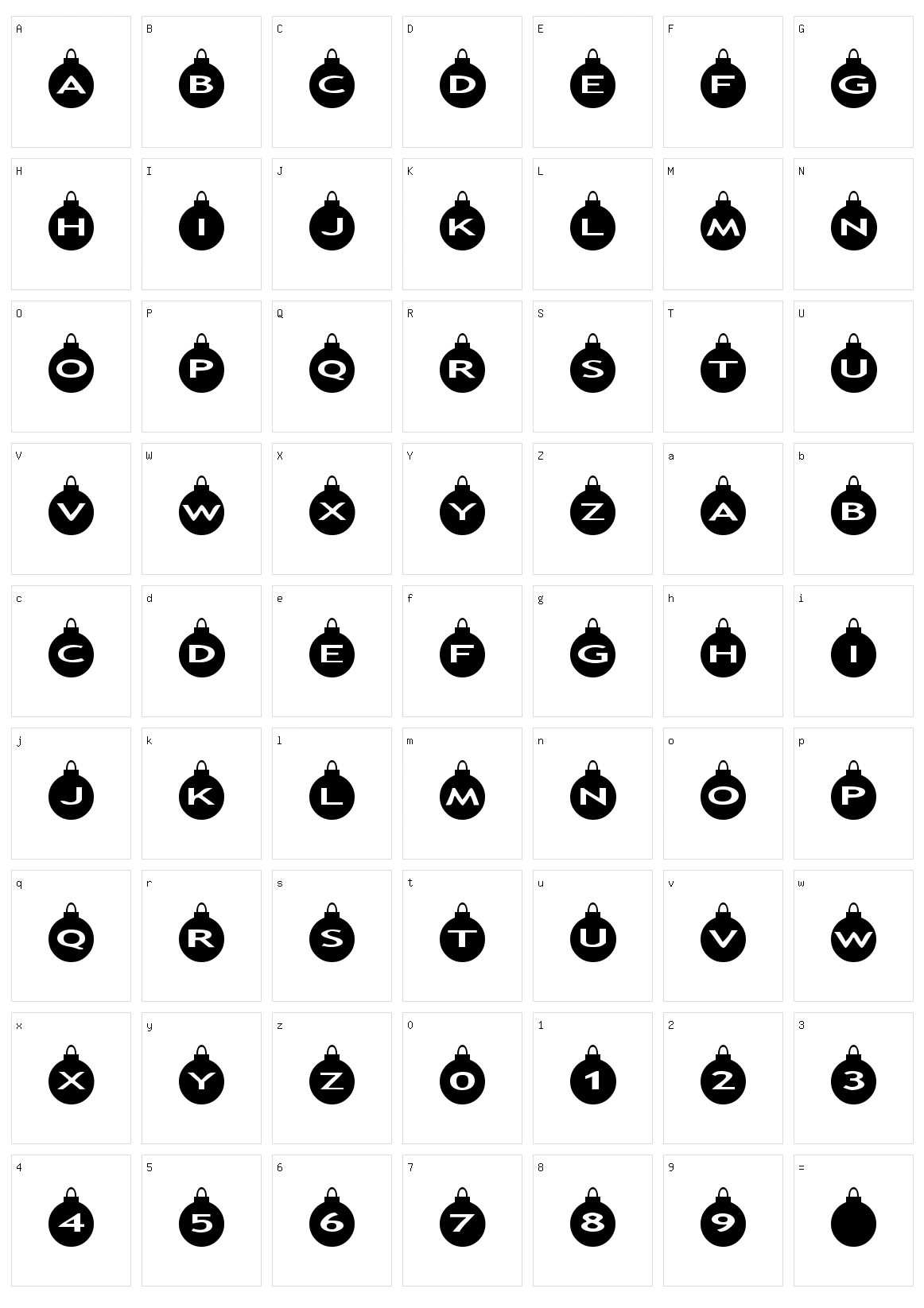
AlphaShapes xmas balls
[ version 1.0 - November 2005 ]
This font contains 37 characters: use keys 1 through 0, a through z and
= (shape with no character).